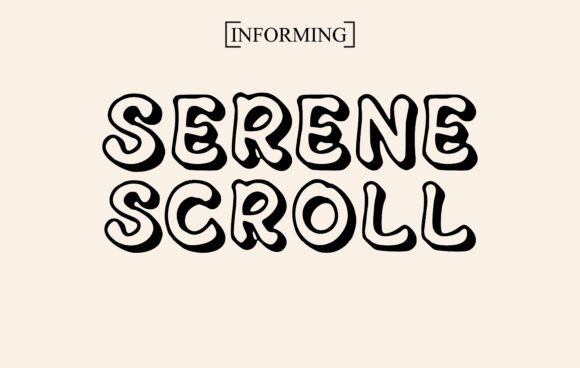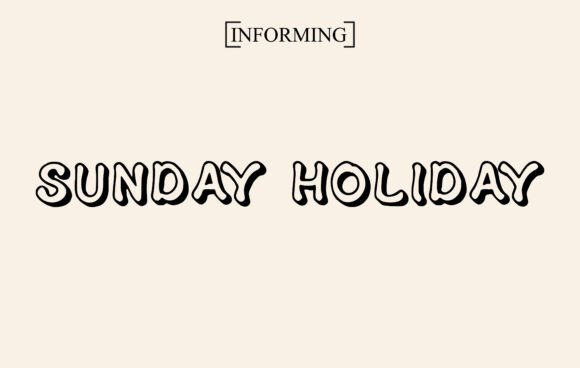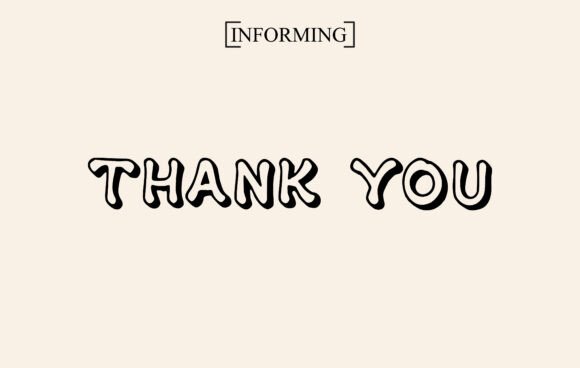
Serene Scroll Font
About the Serene Scroll Font
The Serene Scroll Font is here to transform your projects with its distinctive character and style. Serene Scroll Expertly designed to be a true favorite, this font has the potential to take your creative ideas to the highest level
This font is legible and looks great as a title or body text. This font would be perfect for many different designs for magazine headlines, t-shirt,social media, branding, wedding invitations, cards, etc.
Serene Scroll Font Usage Examples
Serene Scroll Font Example